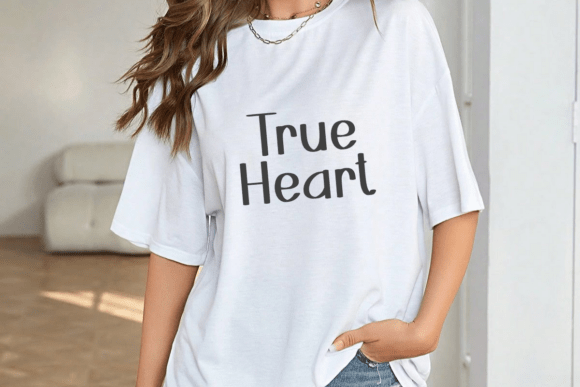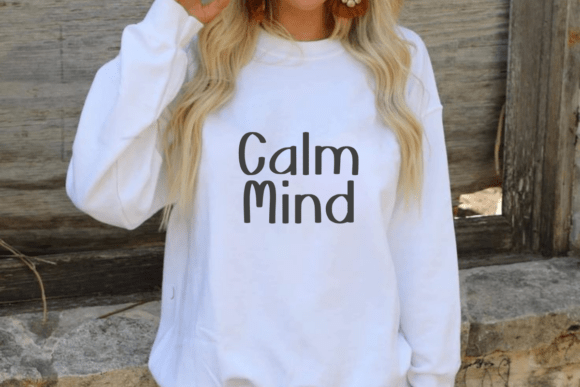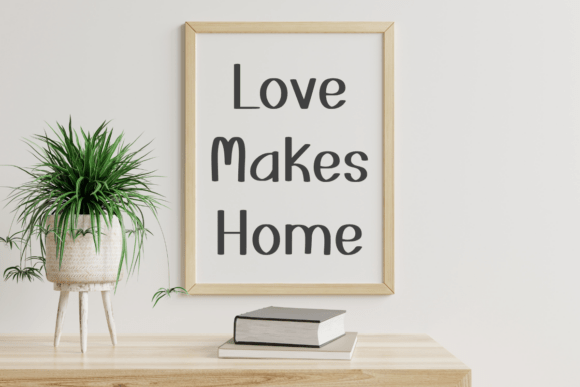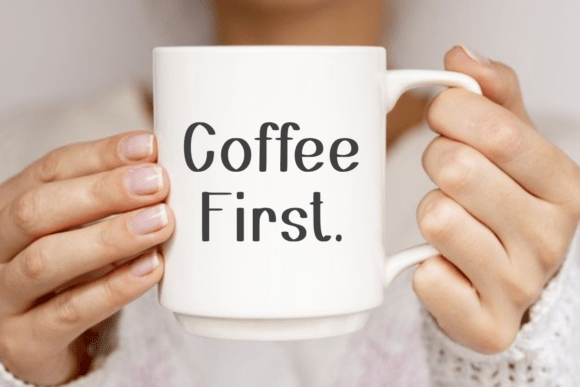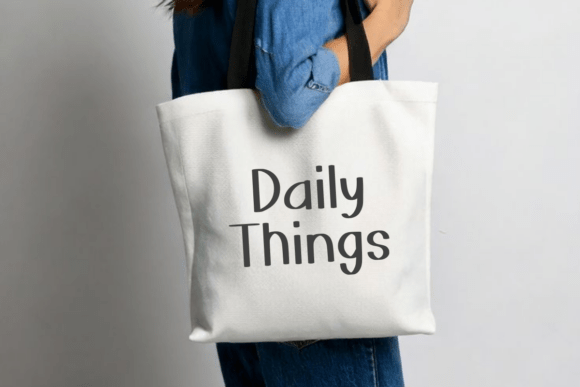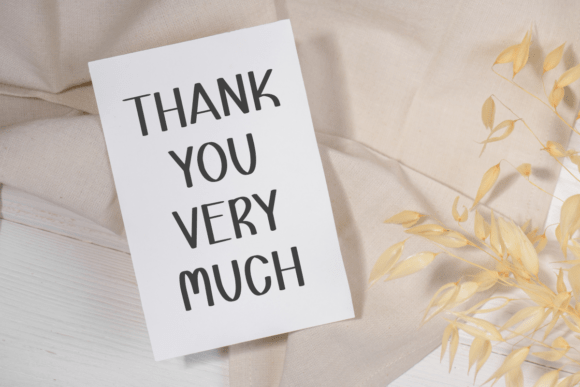
Bemine Tonight Font: The Perfect Choice for Romantic and Personal Designs
Are you looking for a font that exudes warmth, tenderness, and intimacy? Look no further than Bemine Tonight, a romantic and soft Cute Handwriting Font that is sure to capture the hearts of designers and crafters alike. Characterized by its gentle curves and slightly relaxed, hand-drawn appearance, Bemine Tonight is the perfect choice for a wide range of design projects that require a personal and approachable touch.
A Closer Look at Bemine Tonight’s Unique Features
Bemine Tonight’s letterforms are tall and slender, with a tenderly rounded finish that gives the font a soothing and calming quality. The gentle curves and subtle imperfections of the hand-drawn design make it feel approachable and human, perfect for designs that aim to convey a sense of warmth and personality. Whether you’re creating a cozy brand identity, a personalized gift, or a romantic wedding stationery, Bemine Tonight is sure to add a touch of elegance and sophistication.
Ideal Uses for Bemine Tonight Font
So, what are the ideal uses for Bemine Tonight Font? The possibilities are endless, but here are a few ideas to get you started:
• Cozy Brand Identities: Bemine Tonight is perfect for creating a warm and inviting brand identity that feels approachable and personal. Use it for logos, packaging, and marketing materials to create a cohesive and recognizable brand.
• Personalized Gifts: Add a touch of romance and thoughtfulness to personalized gifts such as mugs, tote bags, and cards. Bemine Tonight’s gentle curves and rounded finish make it perfect for creating heartfelt and meaningful designs.
• Poetry and Quote Graphics: Bemine Tonight is a great choice for creating beautiful poetry and quote graphics that feel elegant and sophisticated. Use it to add a touch of whimsy and romance to your designs.
• Wedding Stationery: Create stunning wedding stationery with a modern feel using Bemine Tonight. The font’s tenderly rounded finish and gentle curves make it perfect for creating romantic and intimate wedding designs.
Why Choose Bemine Tonight Font?
So, why choose Bemine Tonight Font for your next design project? Here are just a few reasons:
• Unique and Eye-Catching: Bemine Tonight’s unique and eye-catching design is sure to stand out in a crowded design landscape.
• Versatile: Bemine Tonight is a versatile font that can be used for a wide range of design projects, from branding and marketing to wedding stationery and personalized gifts.
• Easy to Read: Despite its elegant and sophisticated design, Bemine Tonight is easy to read and understand, making it perfect for designs that require a clear and concise message.
• Muted Pastel Background: Bemine Tonight looks stunning against a muted pastel background, adding a touch of softness and subtlety to your designs.
Tips for Using Bemine Tonight Font
Here are a few tips for using Bemine Tonight Font in your designs:
• Pair with Bold Fonts: Bemine Tonight pairs perfectly with bold fonts, creating a beautiful contrast that adds visual interest to your designs.
• Use for Headings and Titles: Bemine Tonight is perfect for use in headings and titles, adding a touch of elegance and sophistication to your designs.
• Experiment with Colors: Don’t be afraid to experiment with different colors and backgrounds to find the perfect combination for your design.
Font Name Bemine Tonight Font
Author Nuhatype
In conclusion, Bemine Tonight Font is a romantic and soft Cute Handwriting Font that is perfect for designers and crafters looking to add a touch of warmth and personality to their designs. With its gentle curves, tenderly rounded finish, and muted pastel background, Bemine Tonight is the perfect choice for a wide range of design projects, from cozy brand identities and personalized gifts to poetry and quote graphics and wedding stationery. So why not give Bemine Tonight a try and see the difference it can make in your designs?